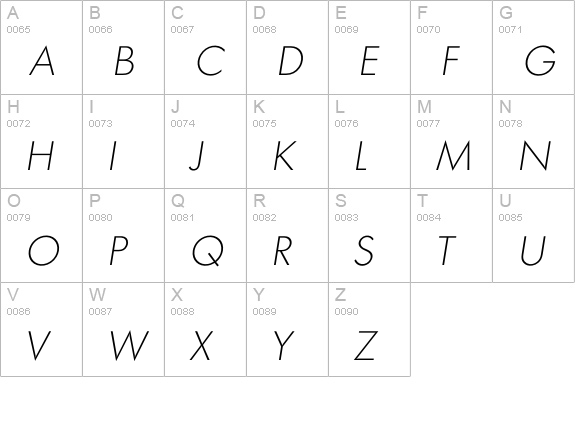
Introducing Ilimerick Xlight, a captivating font that combines elegance and sophistication in a truly unique way. This exquisite typeface brings a touch of modernity to any design project, making it perfect for those seeking a contemporary yet timeless look. Ilimerick Xlight boasts a delicate and slim appearance, with each letter meticulously crafted to exude a sense of grace and refinement. Its subtle curves and slender lines create a harmonious balance, allowing for effortless readability while adding a touch of finesse to any text. What sets Ilimerick Xlight apart is not only its impeccable design but also its availability as a free font. Yes, you read that right – this extraordinary typeface can be freely downloaded at FontsMarket.com, making it accessible to anyone in search of a font that seamlessly blends sophistication and affordability. Whether you're working on a branding project, website design, or even just creating eye-catching graphics for personal use, Ilimerick Xlight is the perfect companion. Its versatility knows no bounds, effortlessly adapting to various styles and themes while maintaining its inherent charm and elegance. Imagine the possibilities – from luxurious wedding invitations to minimalistic posters, from sleek magazine layouts to refined corporate identities – Ilimerick Xlight will elevate your designs to new heights. Its light weight allows for easy pairing with other fonts, creating stunning typographic compositions that are bound to leave a lasting impression. So why settle for ordinary when you can have extraordinary? Download Ilimerick Xlight today for free at FontsMarket.com and embark on a creative journey that will captivate and inspire. Unleash your creativity and let this remarkable font guide you towards design excellence.